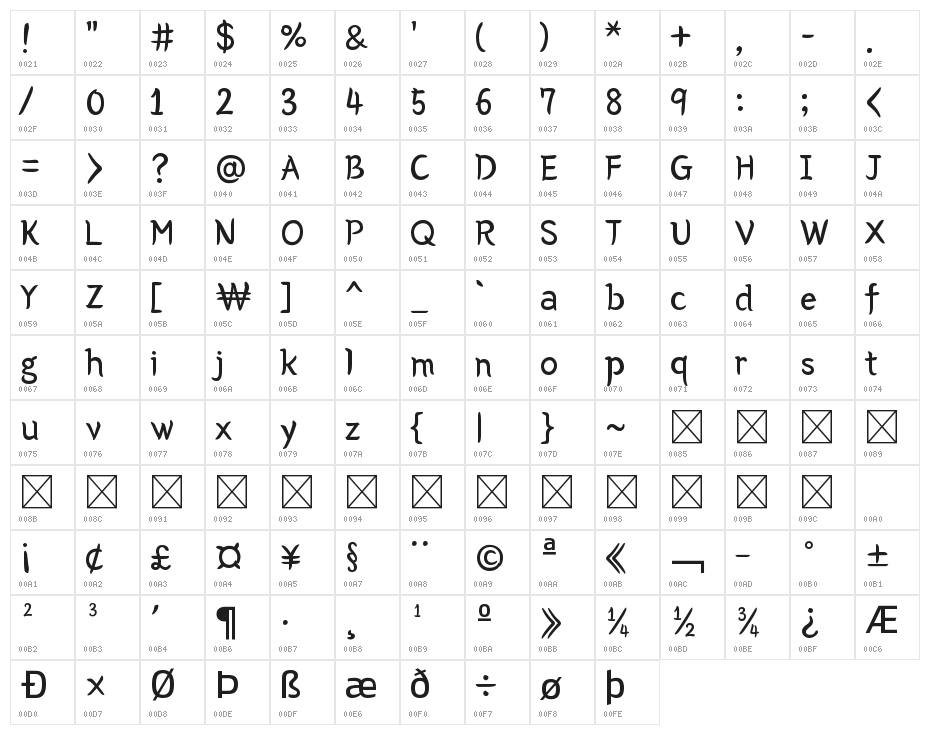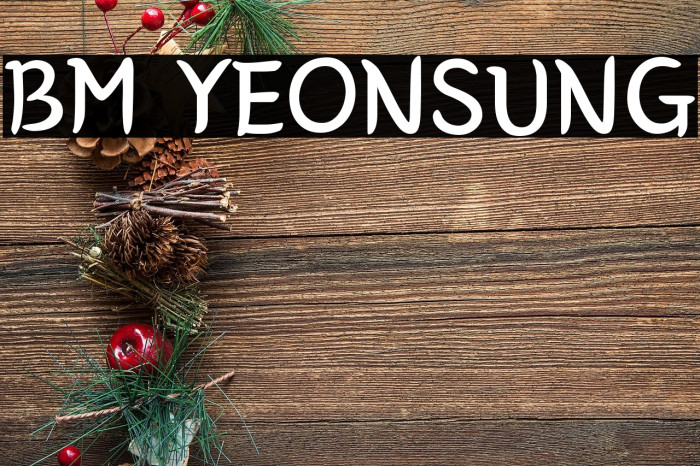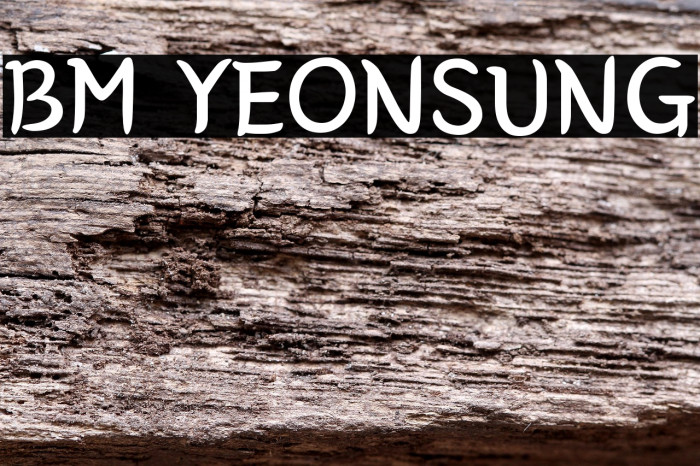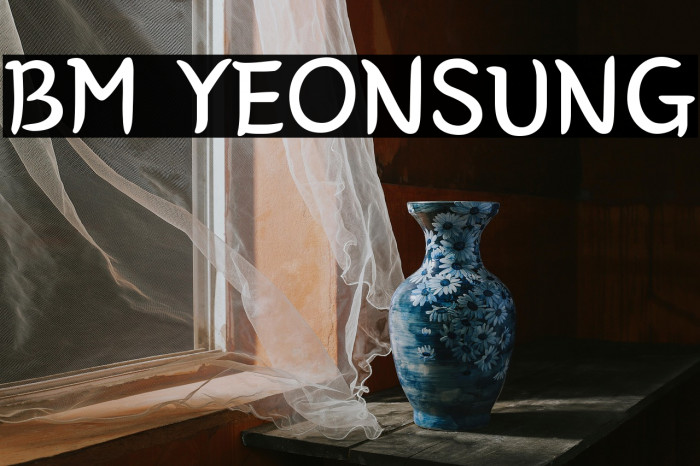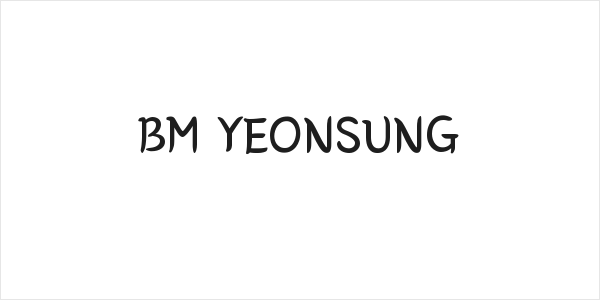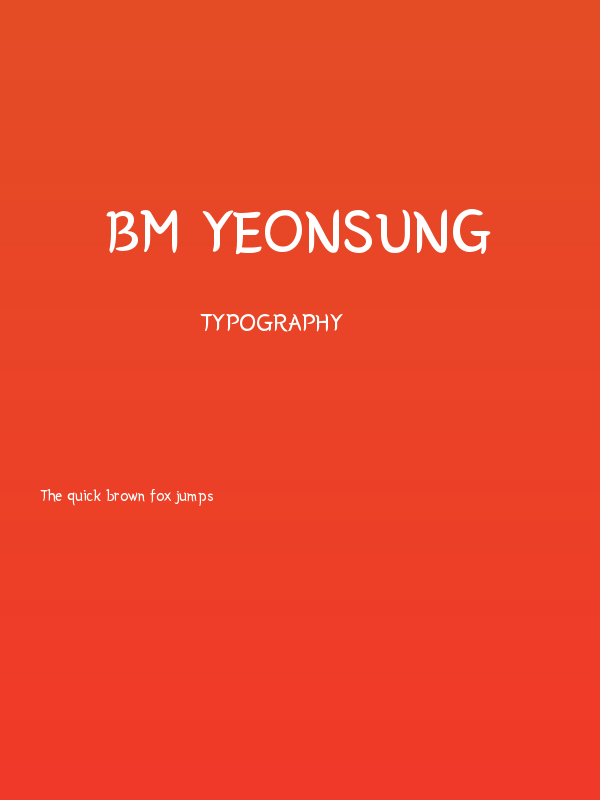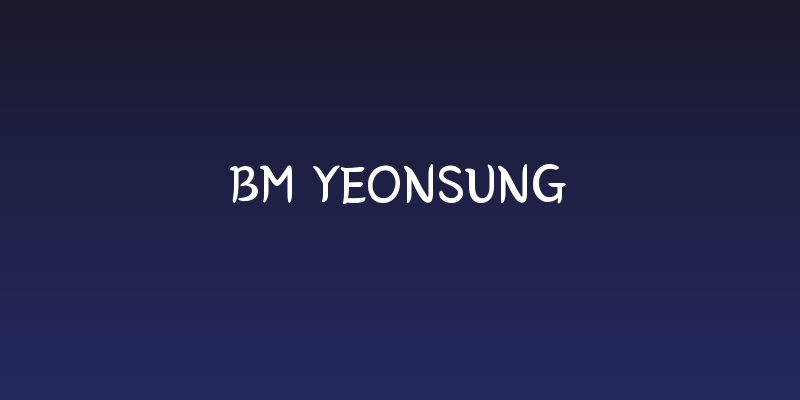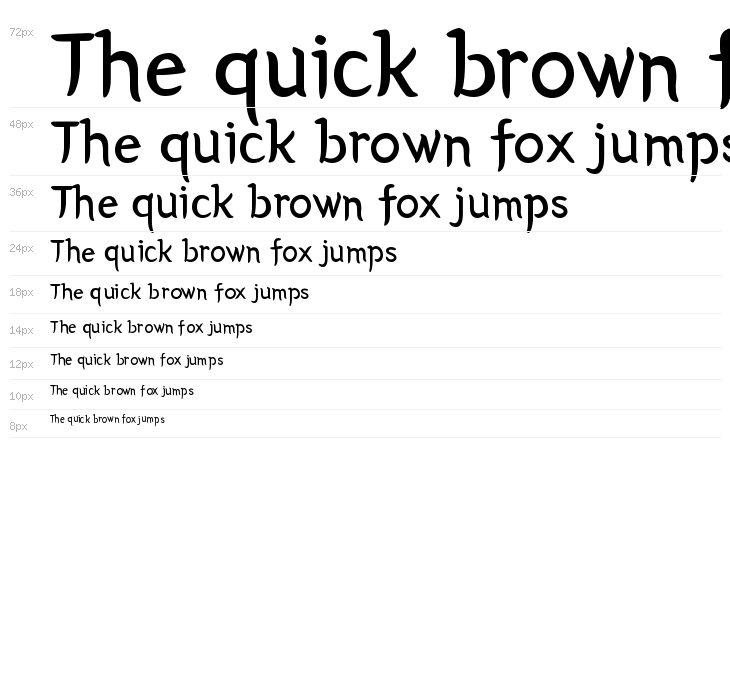
BM YEONSUNG Font
BM YEONSUNG Description
This font exhibits a playful and whimsical style, characterized by its uneven and slightly irregular strokes that give it a hand-drawn appearance. The letters have a casual and informal feel, with a slight slant that adds to its dynamic nature. The uppercase and lowercase letters maintain a consistent style, with rounded edges and a friendly demeanor. The numerals and special characters follow the same design principles, ensuring a cohesive look across all glyphs. This font's unique personality makes it suitable for projects that require a touch of creativity and individuality.
| Proposed Projects | Ideal for children's books, creative posters, casual branding, and playful invitations. |